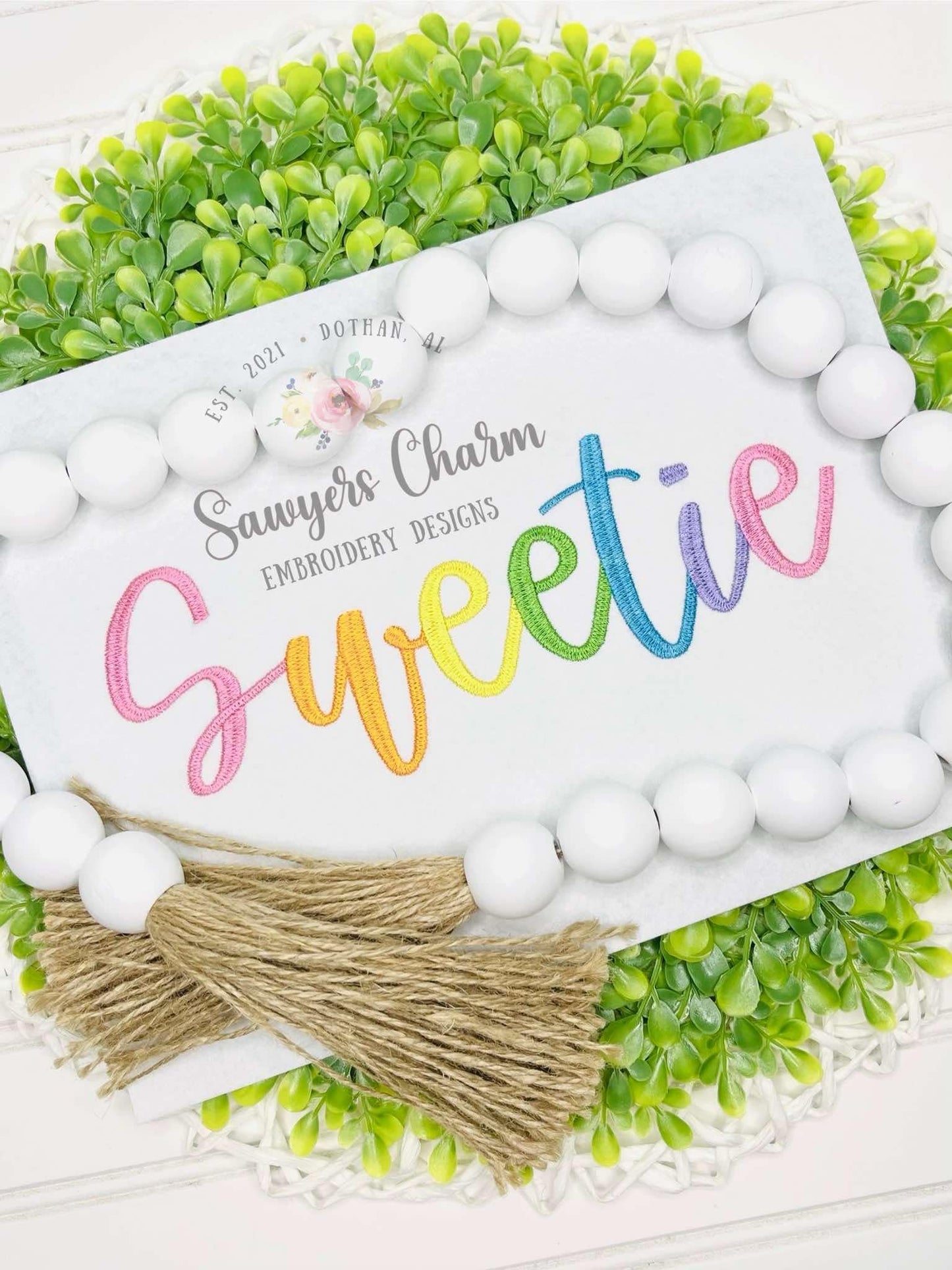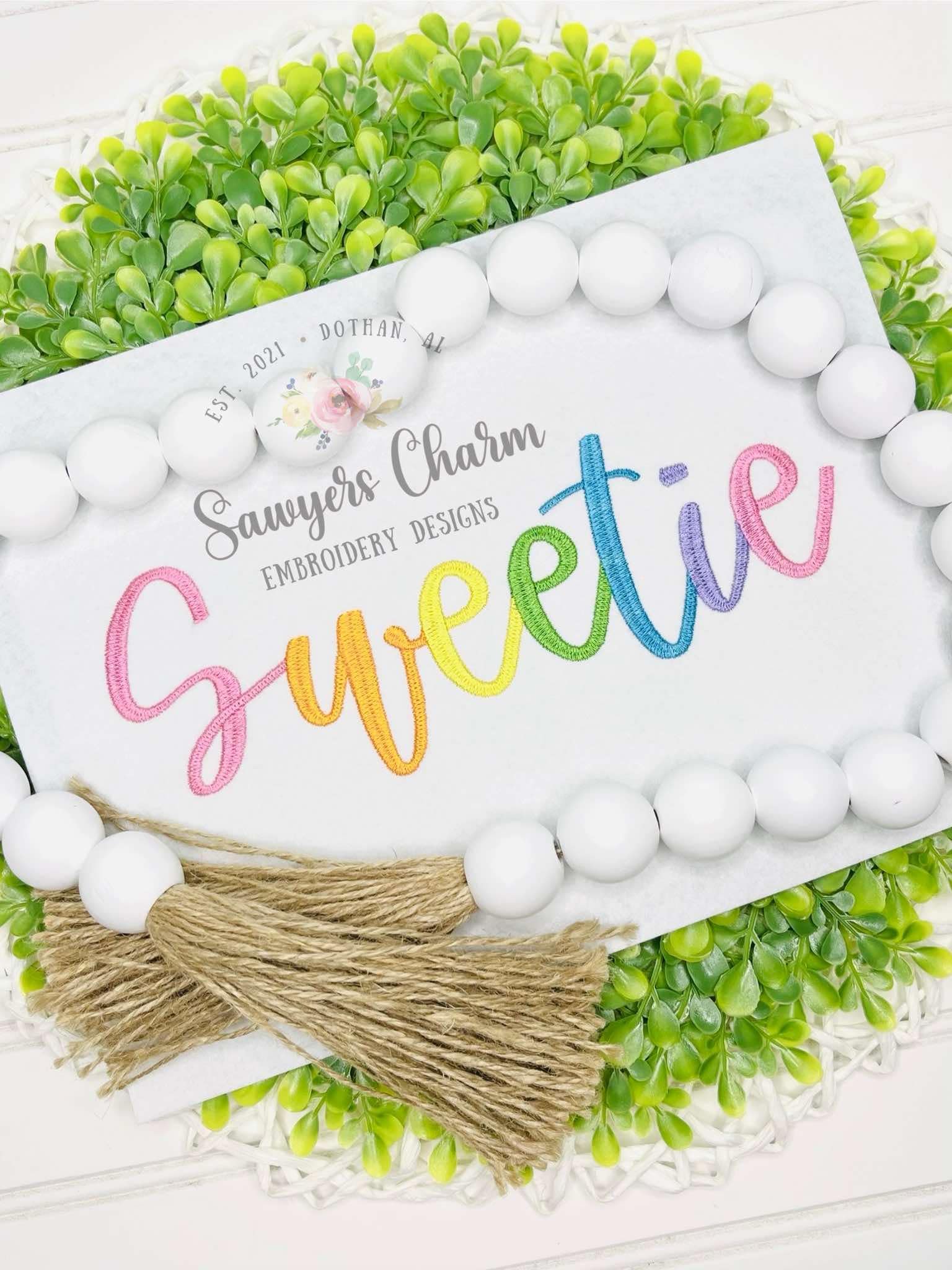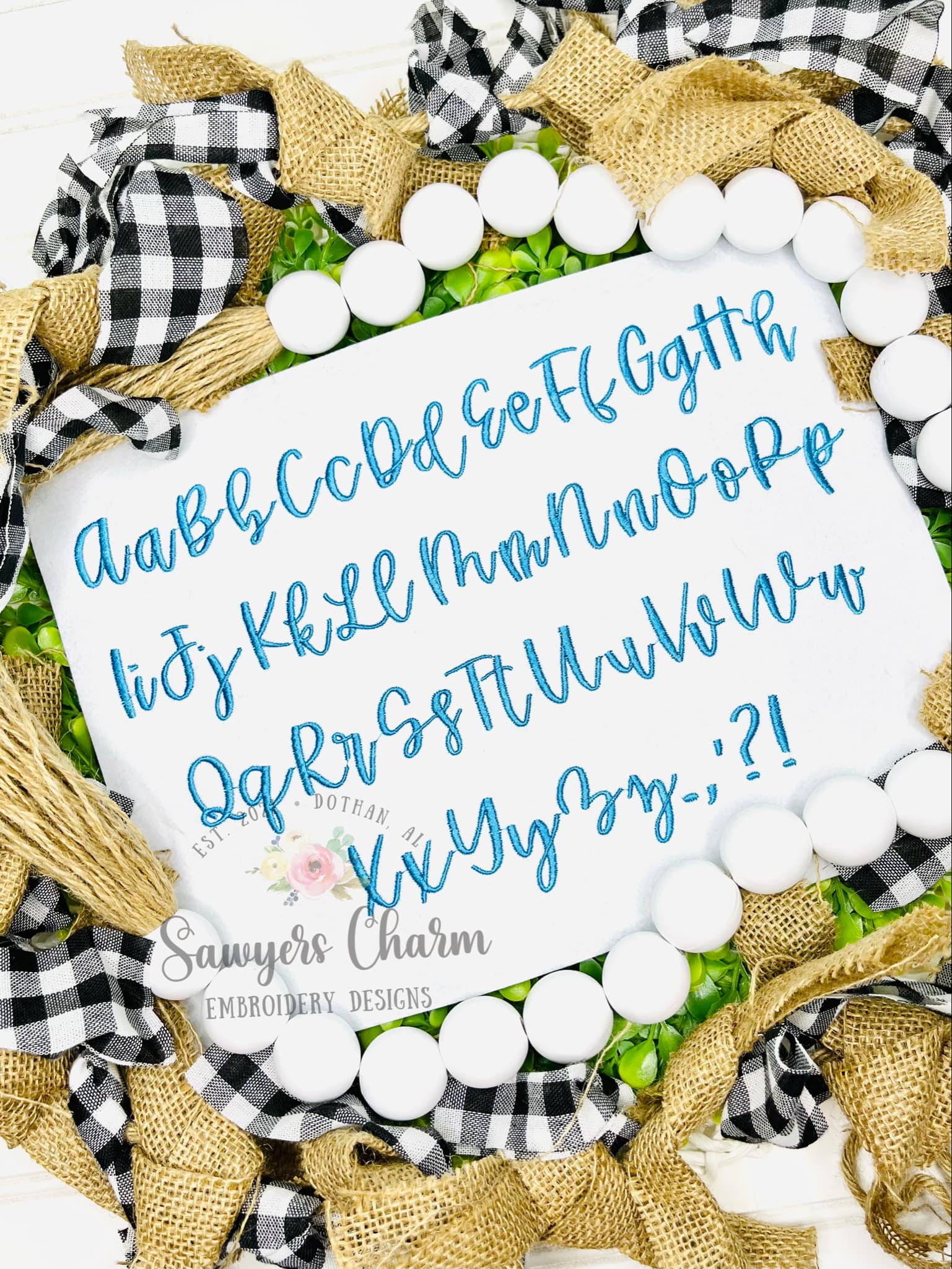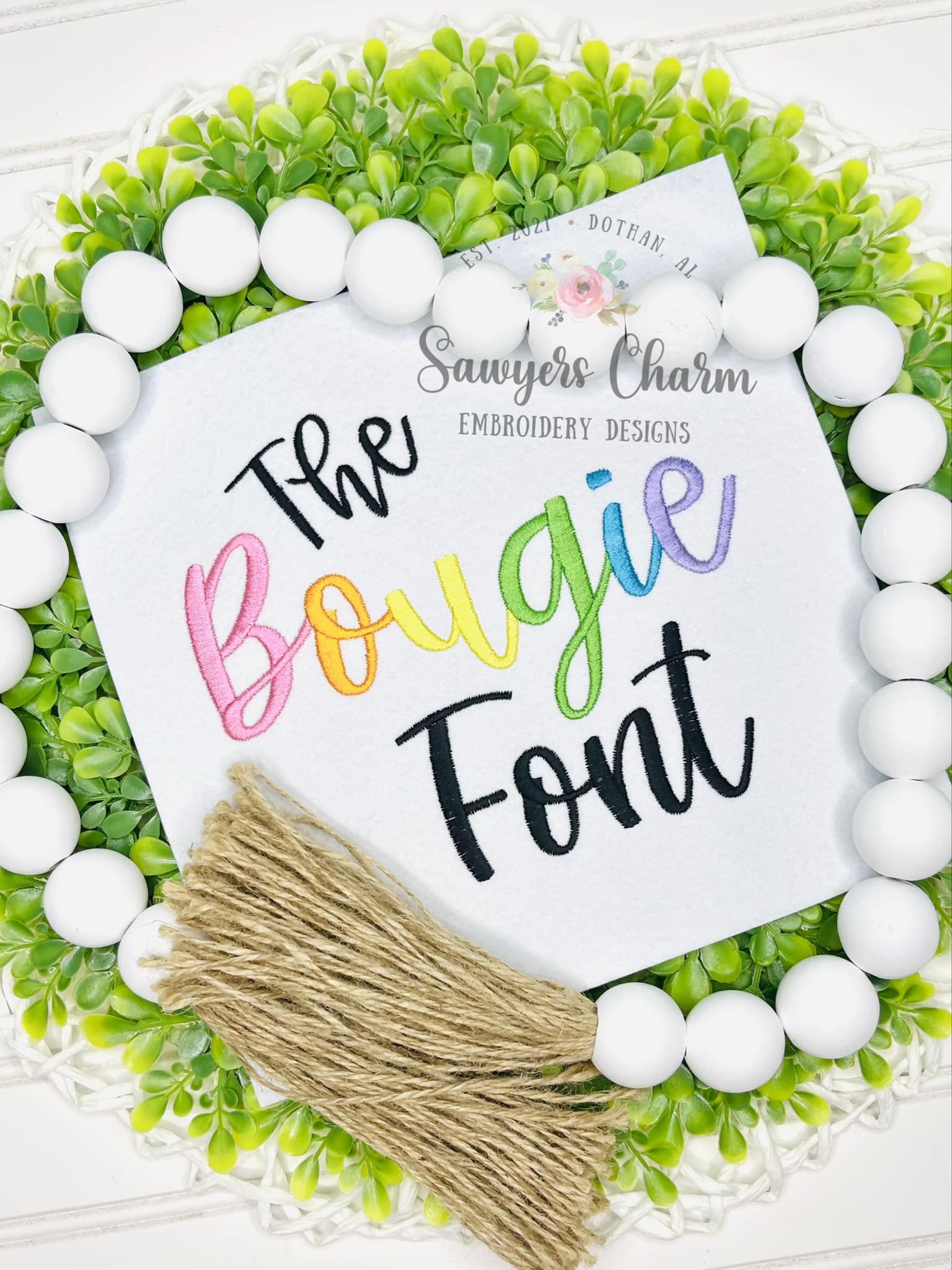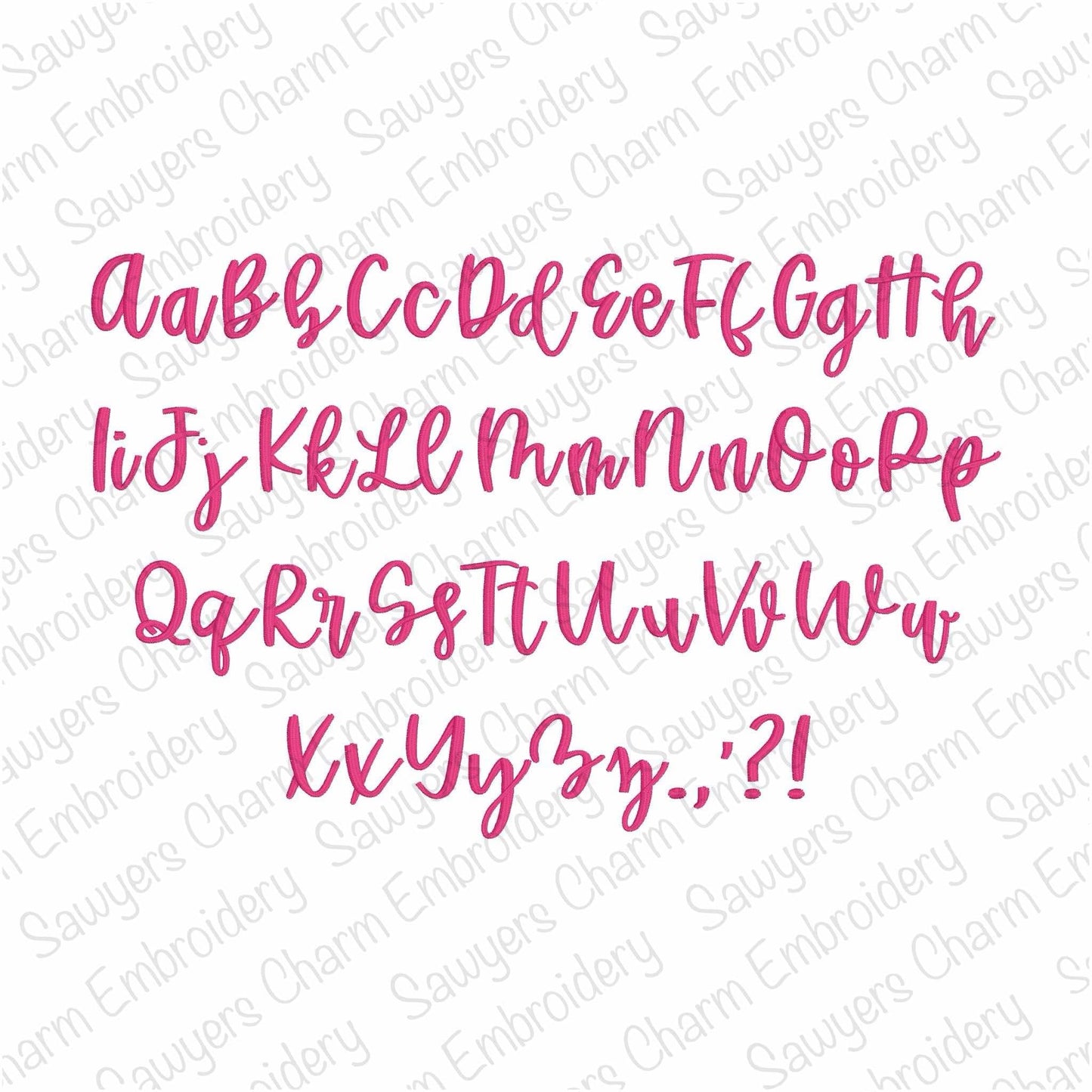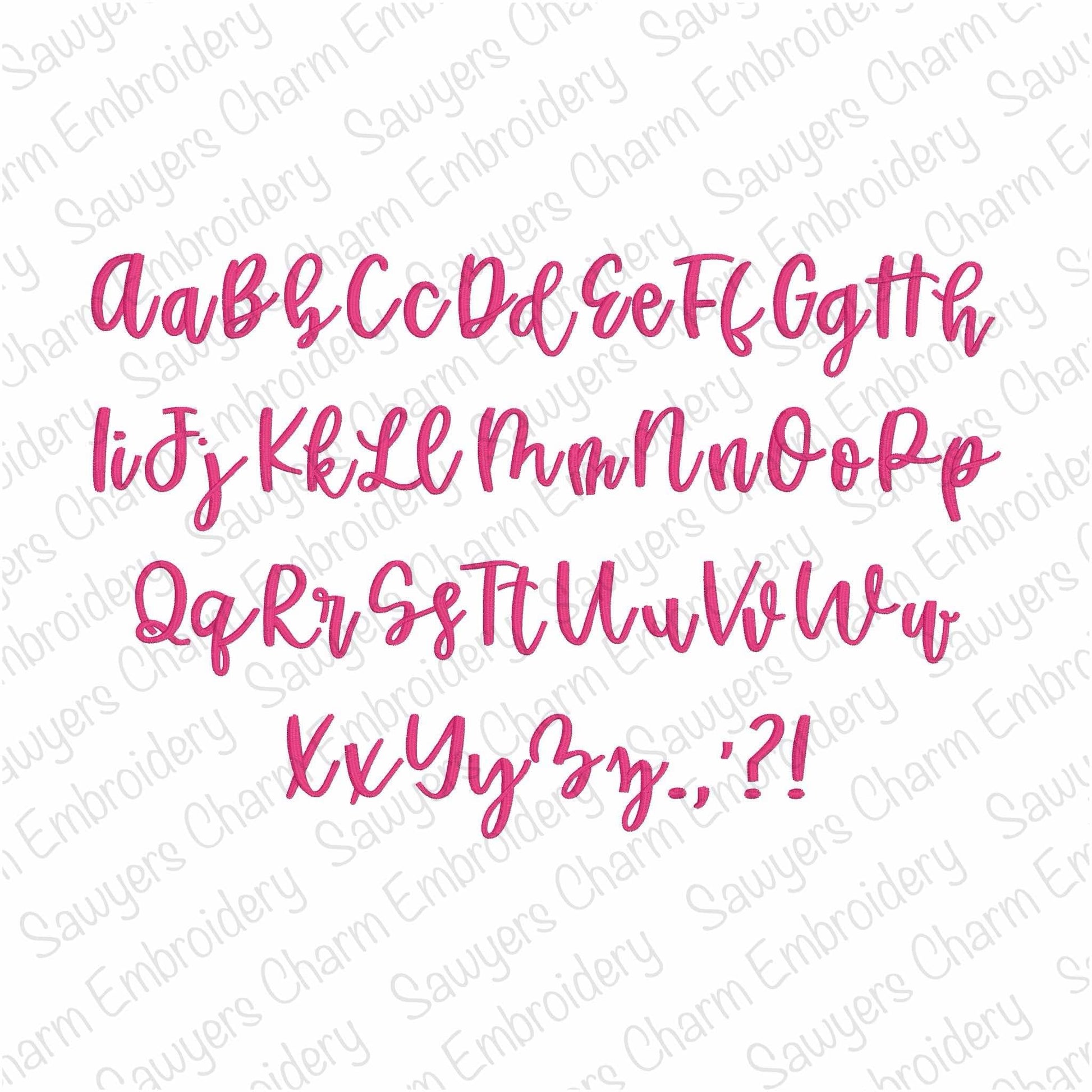
Bougie handwritten machine embroidery font, satin stitch, lower & uppercase letters, trendy handwritten script, BX included
This embroidery font comes in lots of sizes.....1", 1.25", 1.5", 1.75", 2", 2.25", 2.5", 2.75", 3", 3.25", 3.5", 3.75", 4", 4.25", 4.5", 4.75", and 5". This is a satn stitch font with uppercase and lowercase letters. It also includes punctuation: period, comma, apostrophe, exclamation mark, and question mark.